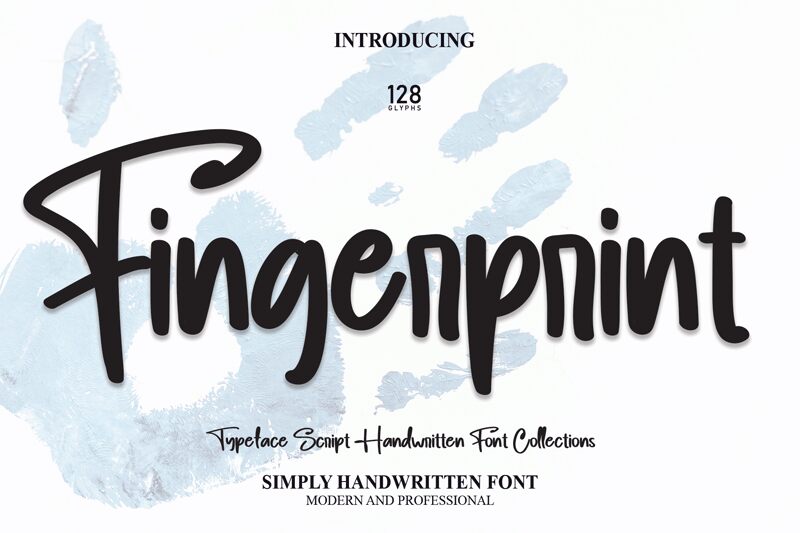
Fingerprint
Fingerprint, a charming handwritten font by Scratchones, brings a touch of authenticity to any project. With its semi-light weight, this font exudes elegance and gracefulness.
Its delicate strokes and unique imperfections create a sense of personality that is perfect for wedding invitations, personal blogs, or heartfelt letters. Fingerprint's versatility allows it to seamlessly enhance anything from book covers to food packaging designs. Its handwritten style adds a human touch, making it ideal for creating warm and inviting logos or branding materials for organic products.
Let Fingerprint leave its mark on your creative endeavors!